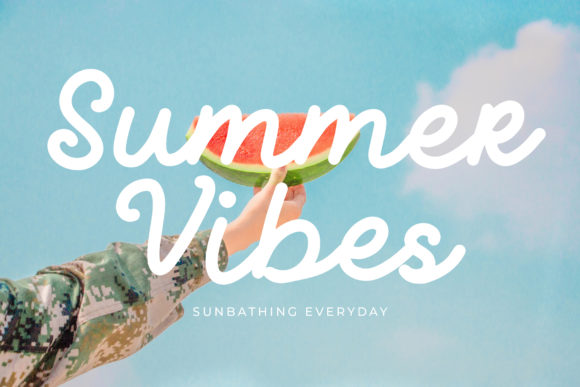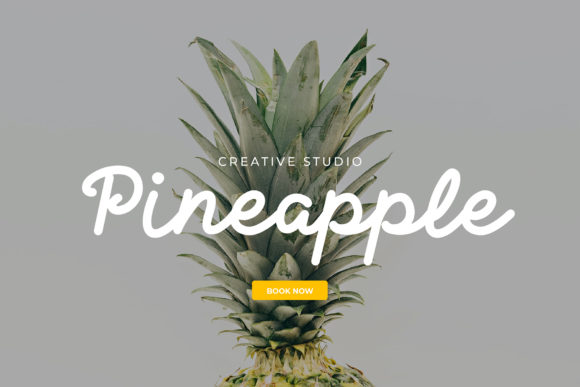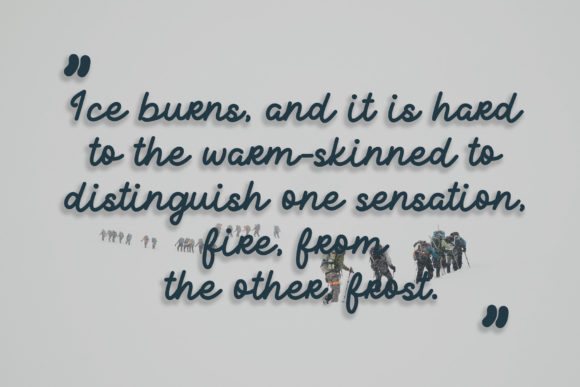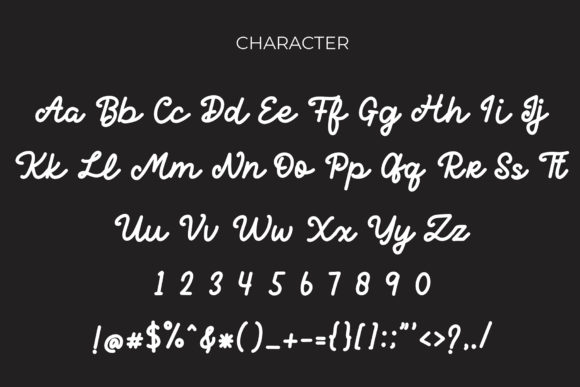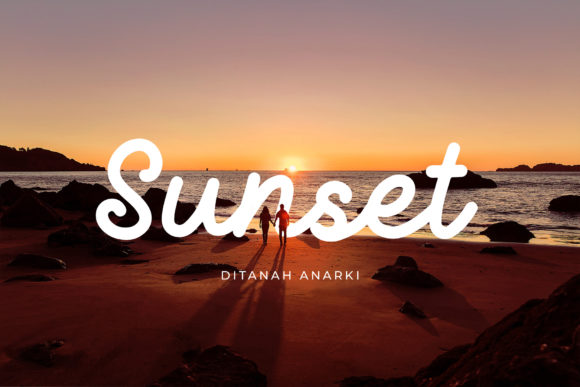
Introduction to One Bite Font
Have you ever found yourself stuck in a creative rut, unable to find the perfect font to bring your project to life? That’s exactly where I was when I stumbled upon the One Bite Font. Its unique blend of casual charm and readability instantly caught my attention, and I knew I had to learn more.
As designers, we’re constantly on the lookout for high-quality design resources that can elevate our creative projects. The One Bite Font is a true gem, offering a level of versatility that makes it perfect for a wide range of applications, from branding and advertising to digital design and print materials. With its transparent background and free download option, it’s an incredibly valuable asset for any designer looking to add some personality to their work.
Whether you’re working on a new design project or simply looking to refresh your design library, the One Bite Font is definitely worth checking out.
Key Features of One Bite Font
- Designed with versatility in mind, suitable for various design projects, from branding and advertising to digital products and editorial content.
- Includes a comprehensive character set, covering Latin, Cyrillic, and Greek alphabets, making it a valuable resource for multilingual designs.
Honest Review: One Bite Font
I recently stumbled upon the One Bite Font and was excited to give it a try. As a designer, I’m always on the lookout for high-quality design resources to elevate my creative projects. The One Bite Font did not disappoint!
- ✨ High-quality design: The font is crisp, clean, and easy to read, making it perfect for a variety of design applications.
While the One Bite Font excels in many areas, there are a few limitations to be aware of:
- ⚠️ Limited font variations: Compared to other fonts, the One Bite Font has a relatively limited range of styles and weights.
- ⚠️ May not be suitable for complex designs: Due to its simplicity, the font may not be the best choice for intricate or highly detailed designs.
Overall, I’m impressed with the One Bite Font’s performance and would definitely recommend it to designers looking for a high-quality, free design resource. While it may have some limitations, its strengths make it a valuable addition to any creative project.
One Bite Font is ideal for creative projects that require a unique and eye-catching font. Use it for headings, titles, or body text to add a touch of sophistication to your design. You can also use it for social media graphics, logos, or branding materials.